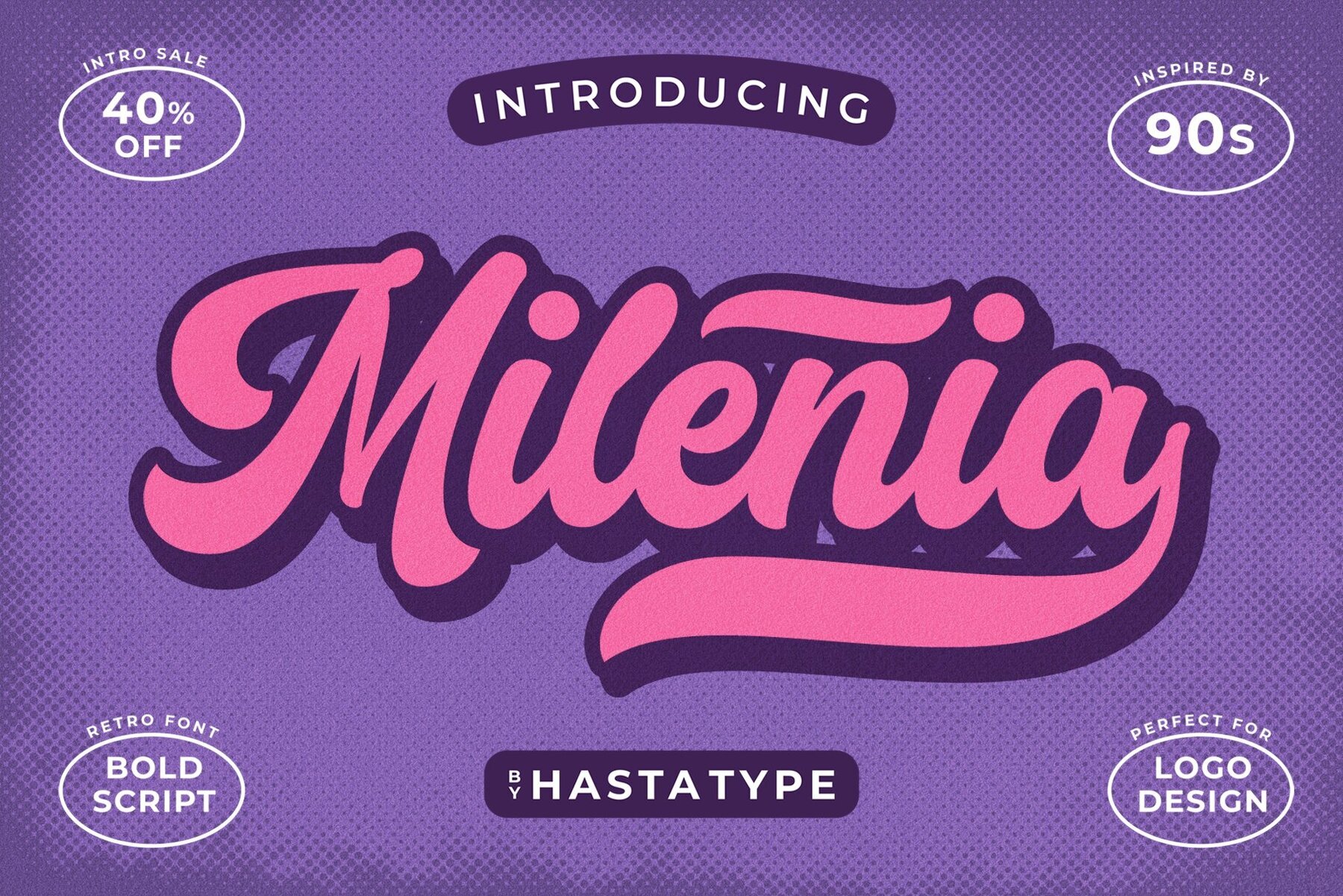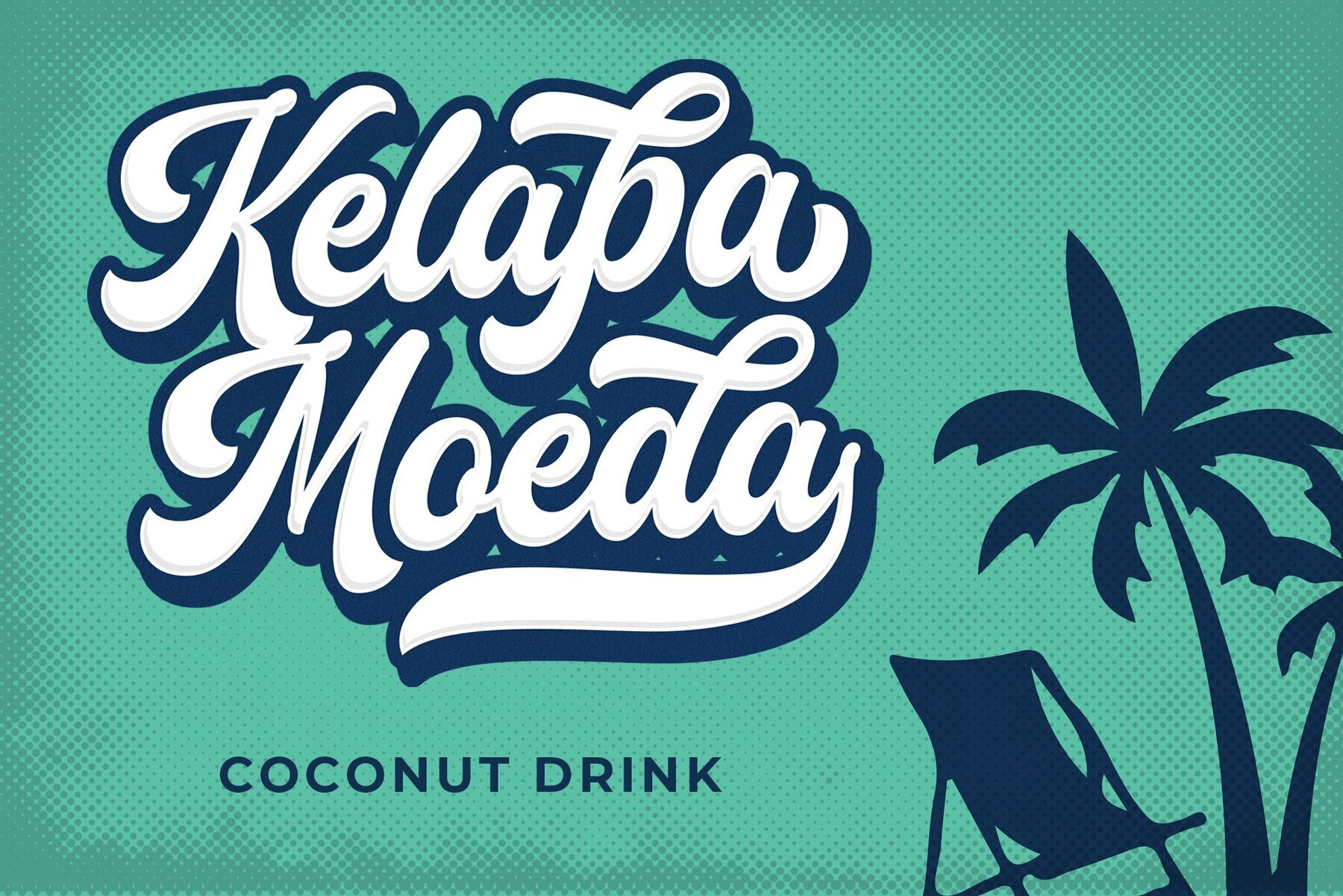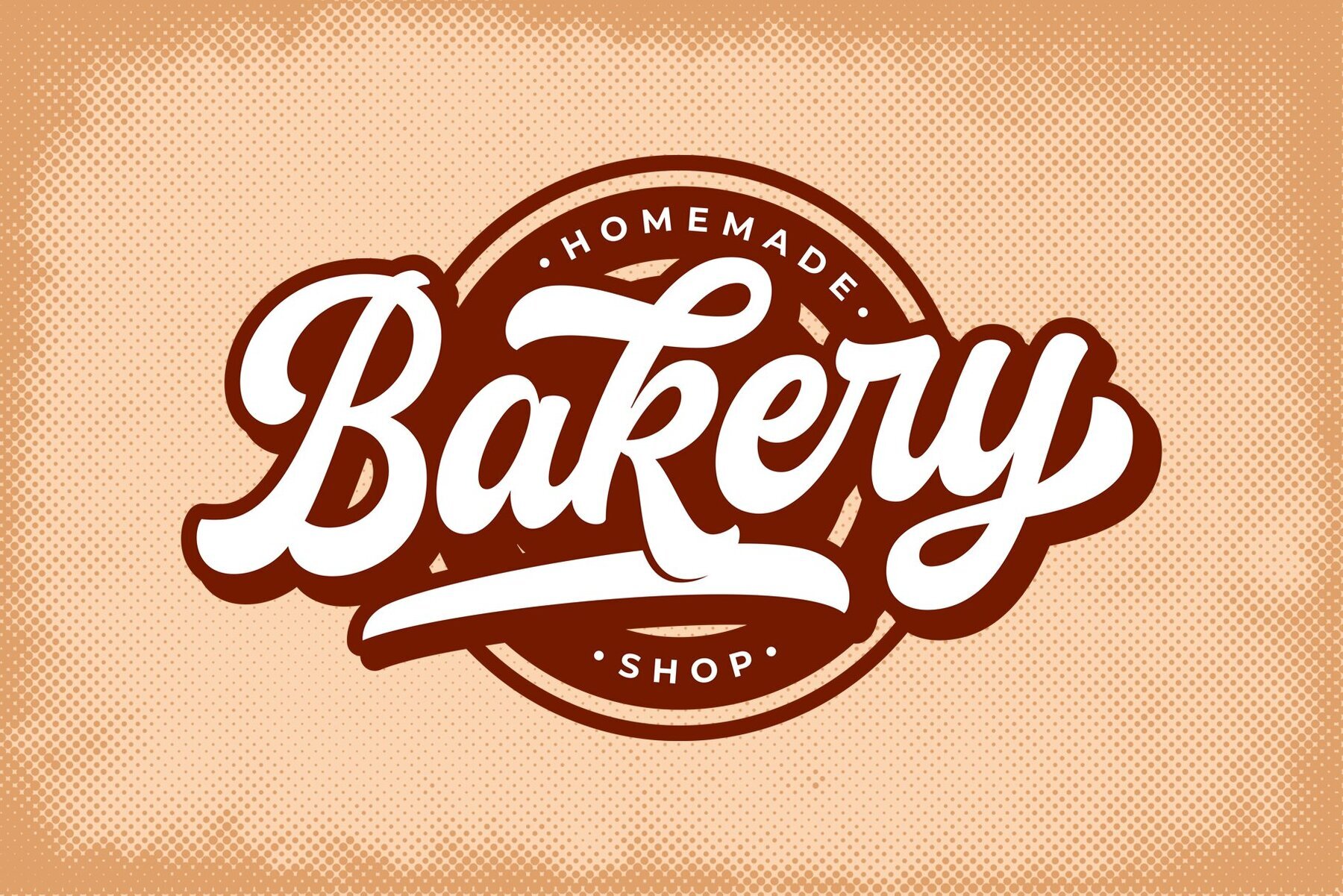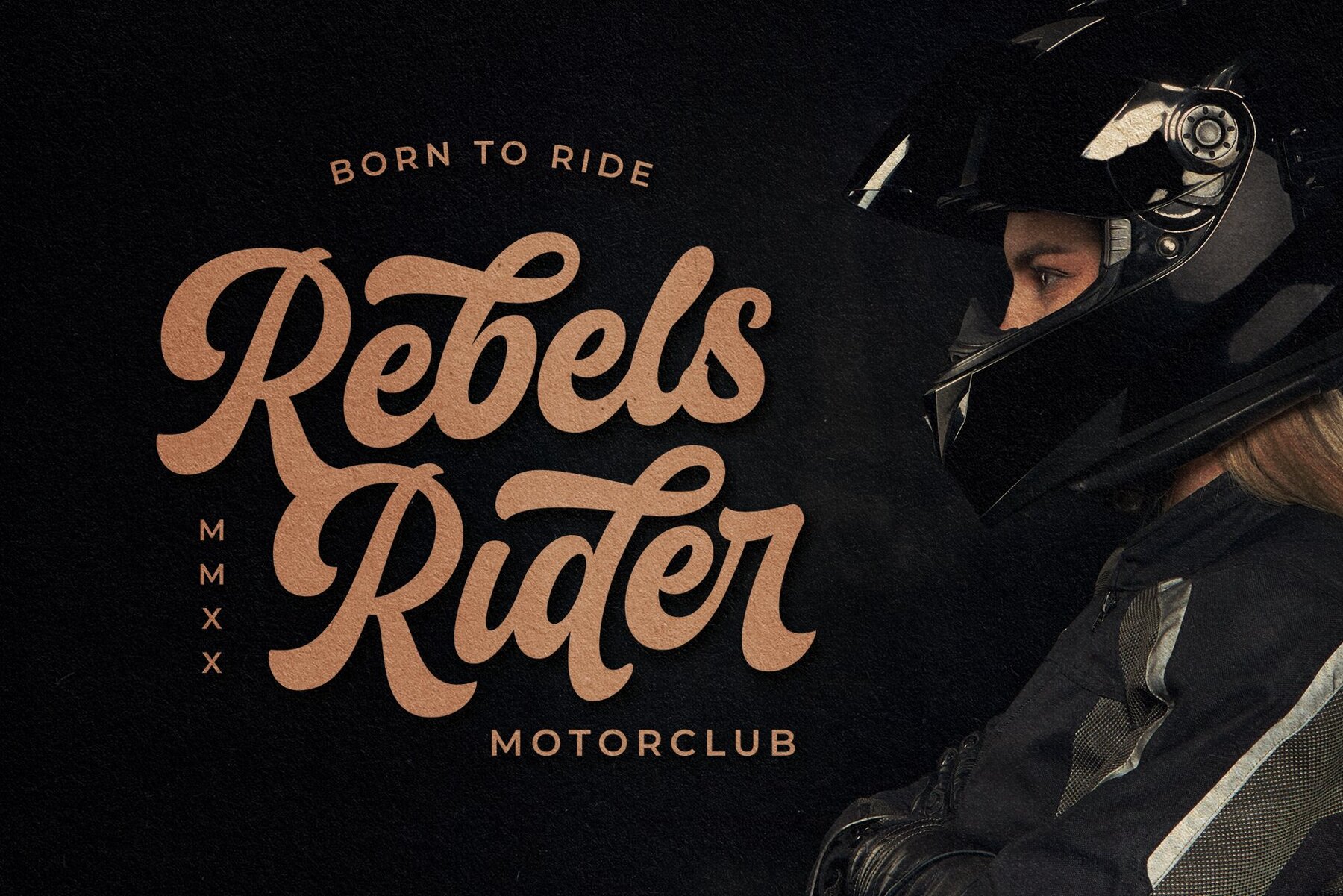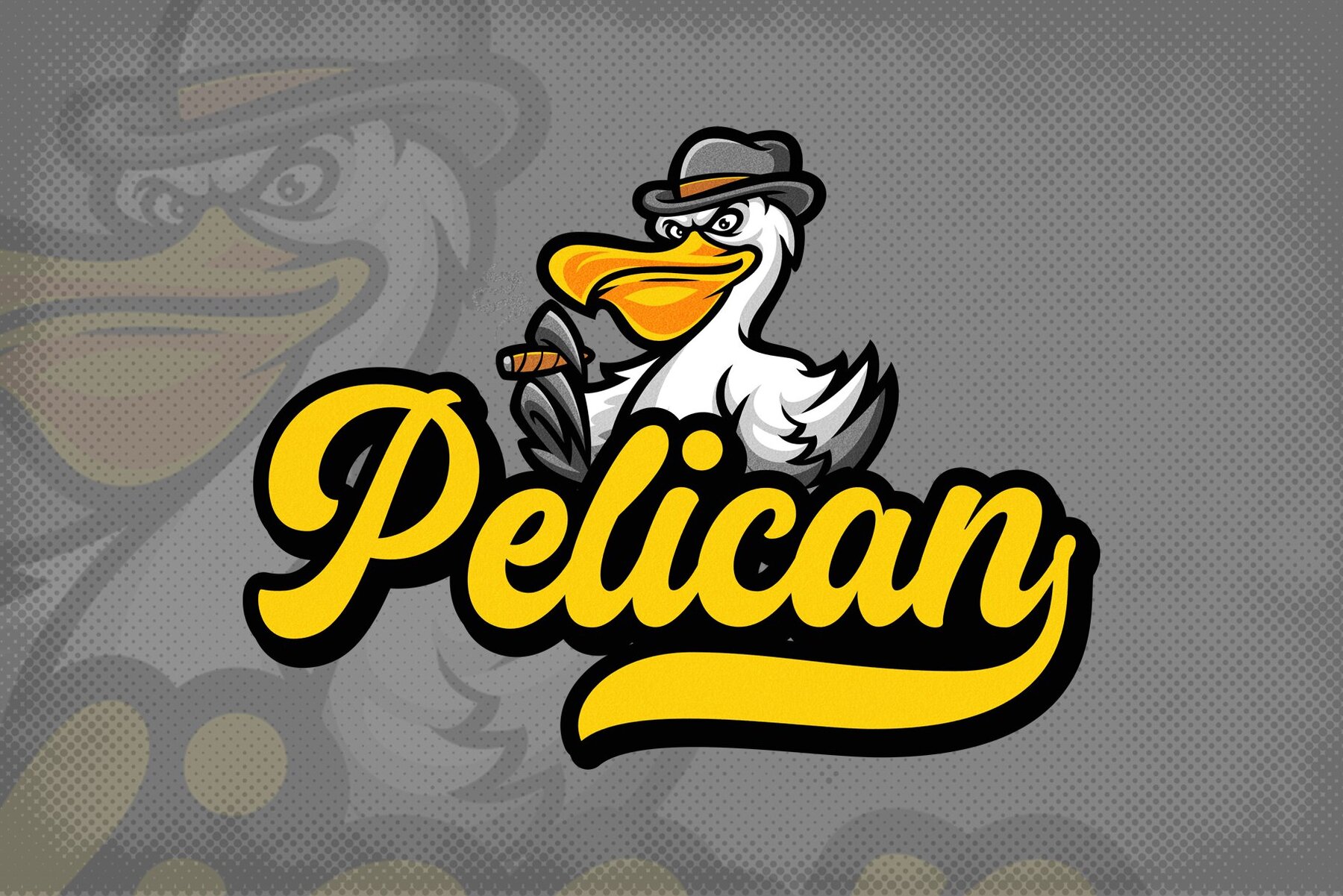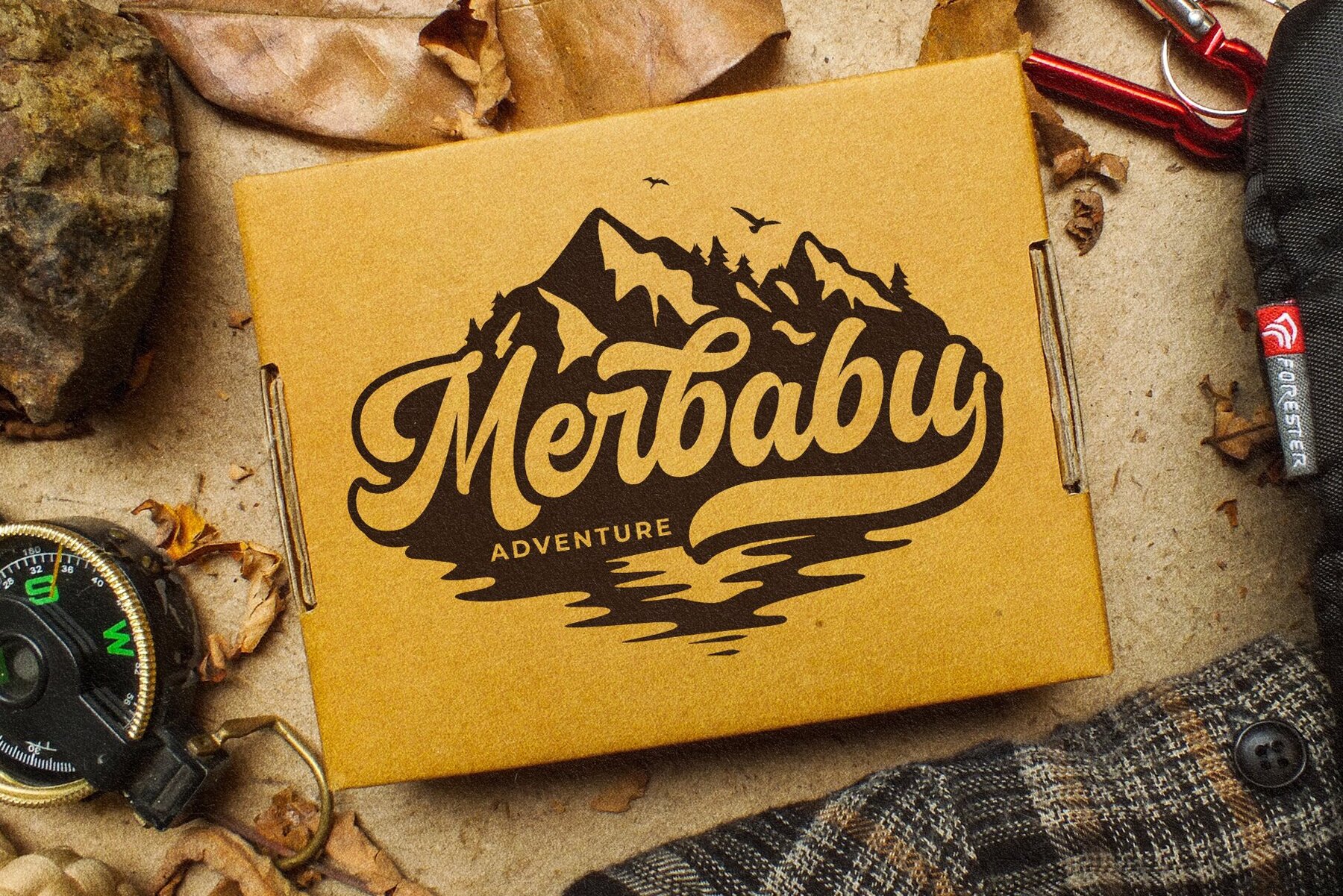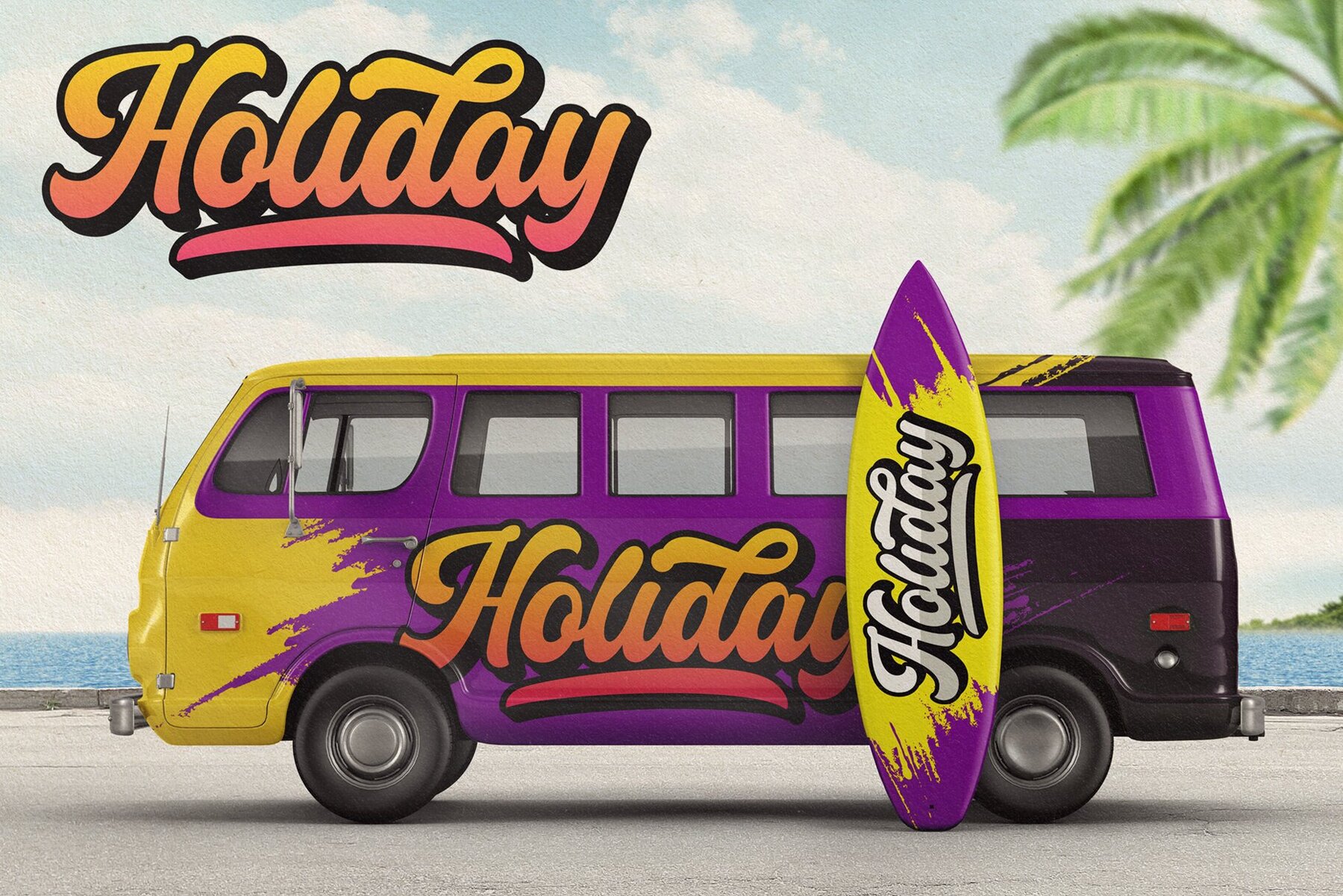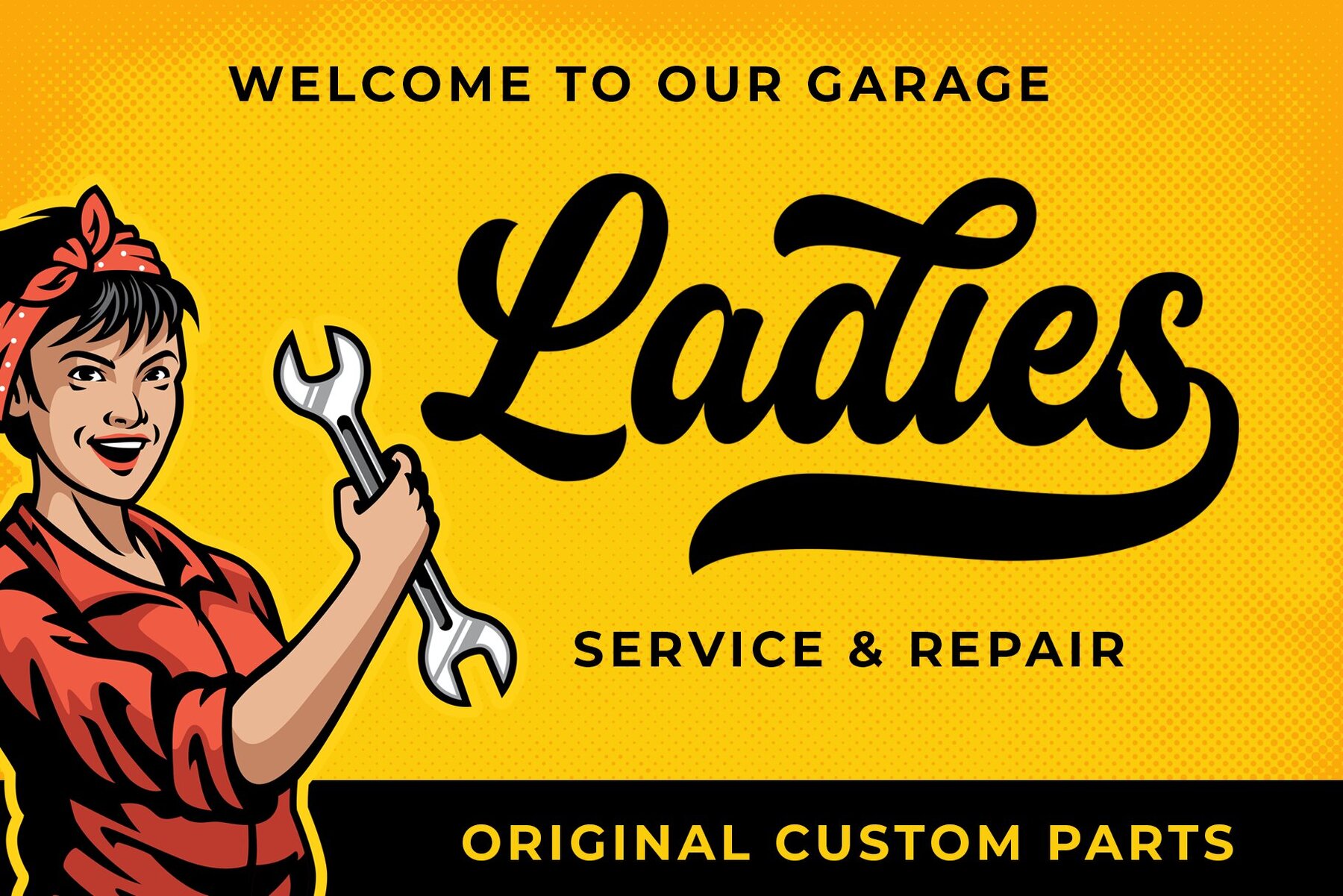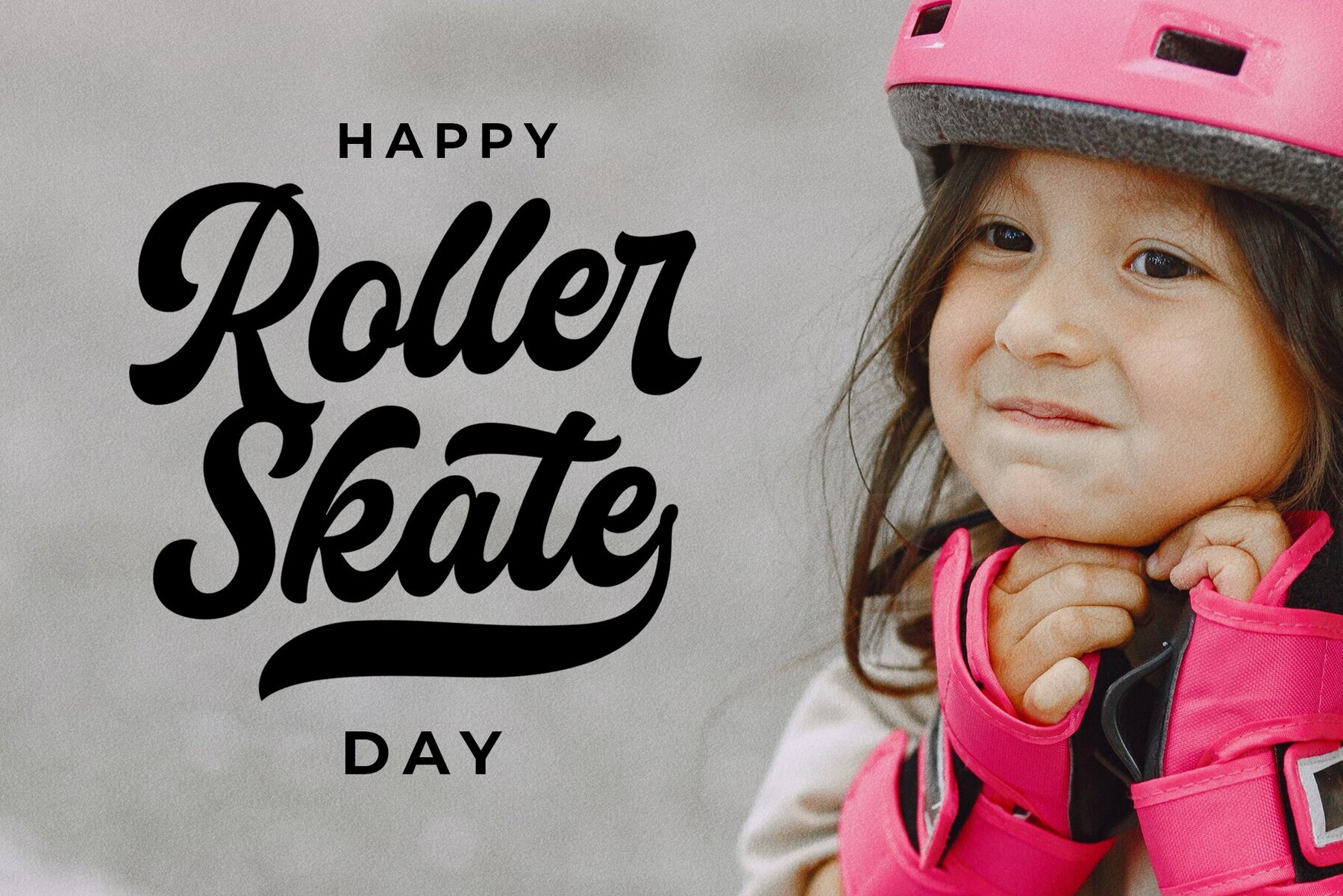
Milenia Font
Milenia
Milenia is a bold script typeface that draws inspiration from the vibrant style of the 1990s. Its design is based on the original lettering crafted by the author, giving it a unique and authentic flair. With numerous alternates, Milenia is particularly suited for creating striking logotypes. This versatile typeface is also ideal for a variety of other design applications, including t-shirt graphics, packaging, branding, logos, labels, badges, magazines, and quotes.
Key features of Milenia include a full set of uppercase and lowercase characters, numbers, and punctuation. It supports multilingual text, offering flexibility in a wide range of languages. Additionally, the typeface includes ligatures and alternates, providing creative options for customizing your designs. Being PUA encoded, Milenia ensures that all glyphs are easily accessible to enhance your projects.